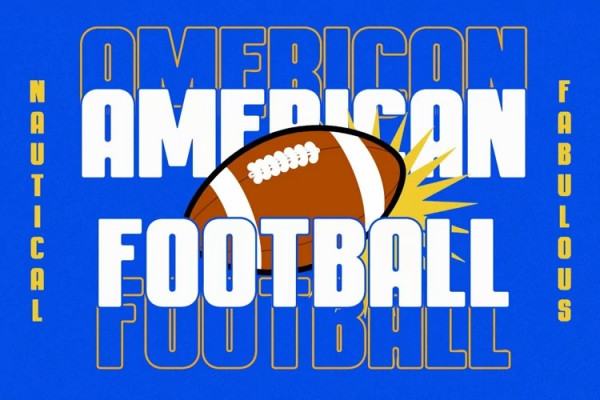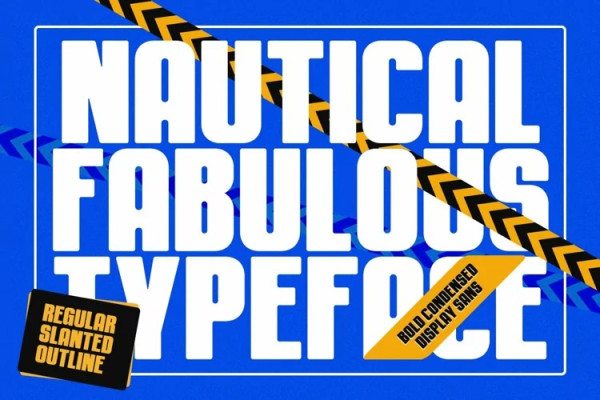
Nautical Fabulous Font
Nautical Fabulous Font features a perfect blend of boldness and condensed letterforms. Its clean lines and sharp edges give it a catchy look that is ideal for modern branding, striking headlines, and impactful displays. With its commanding presence, this font effortlessly stands out in any design composition.
This font perfectly made to be applied especially in logo, and the other various formal forms such as invitations, labels, logos, magazines, books, greeting / wedding cards, packaging, fashion, make up, stationery, novels, labels or any type of advertising purpose.